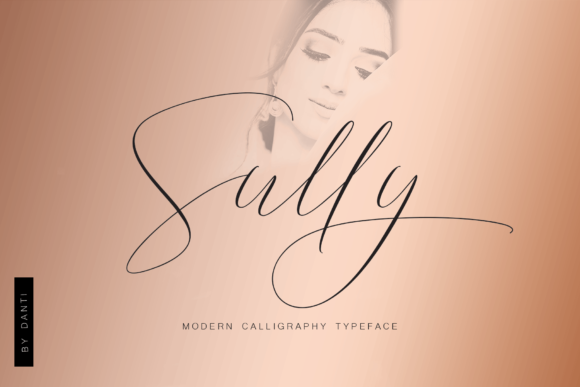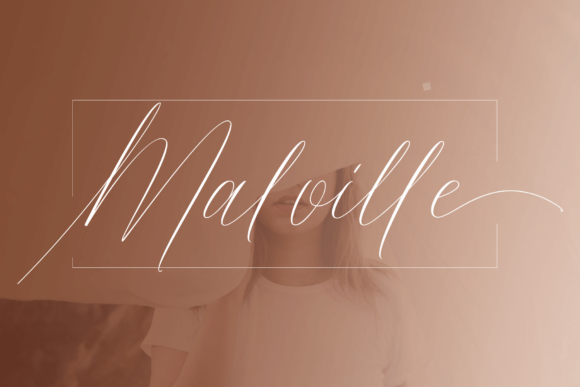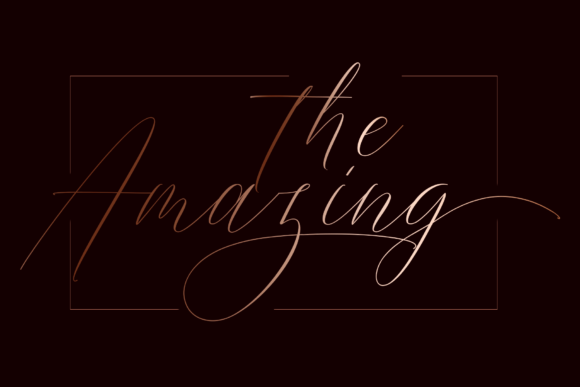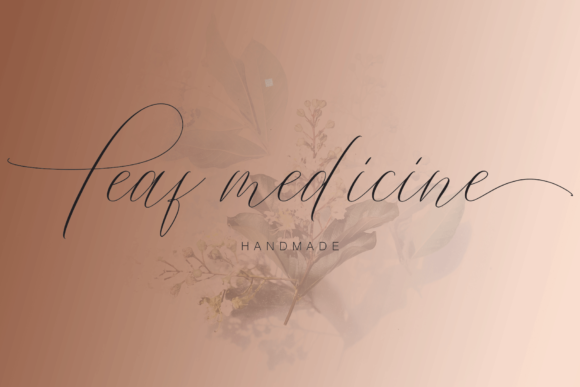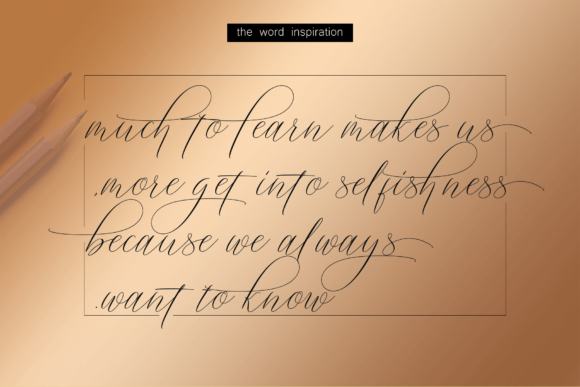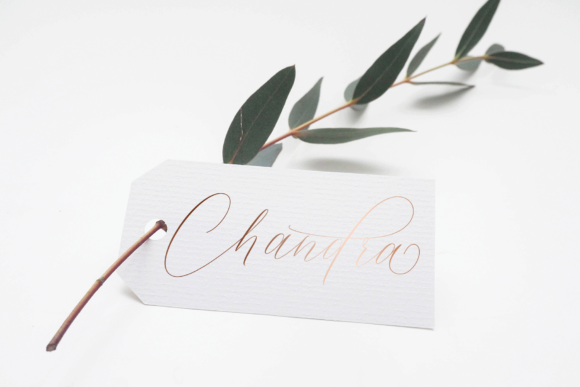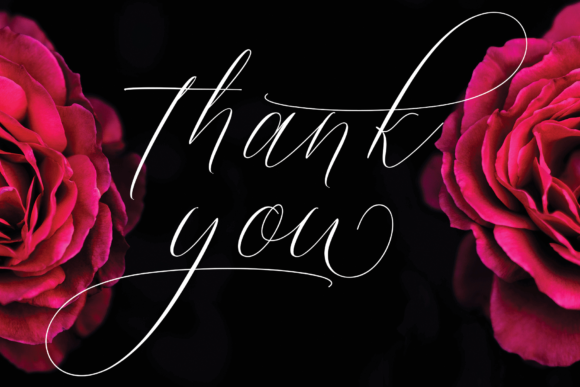
Sully Font
About Sully Font
The Sully is an elegant handwritten font. It has natural characteristics and is perfect for invitations, signatures, blogs, social media, business cards, and much more!